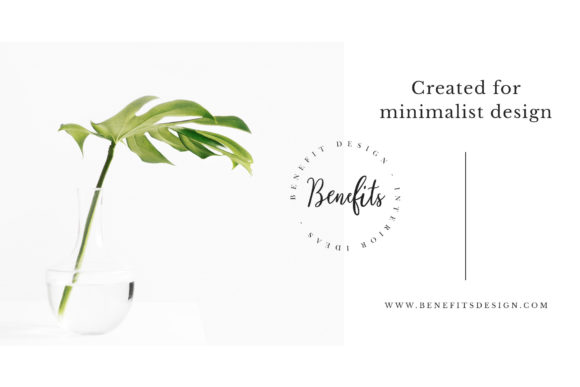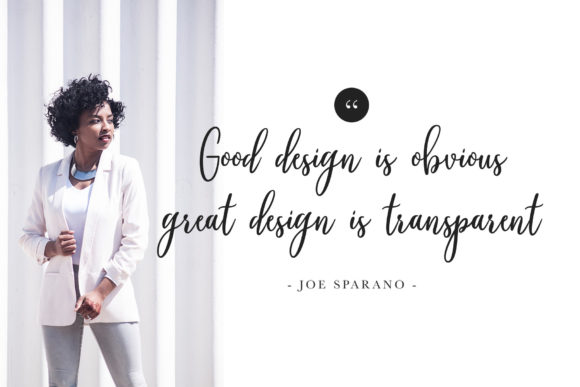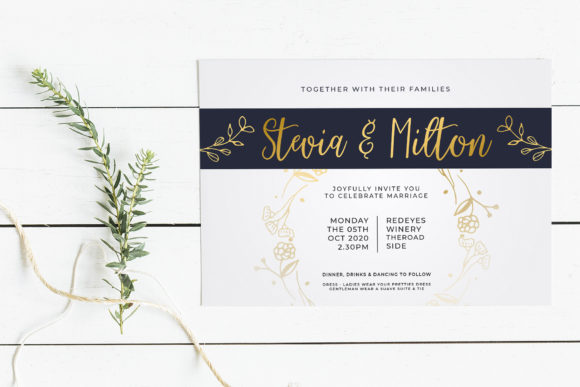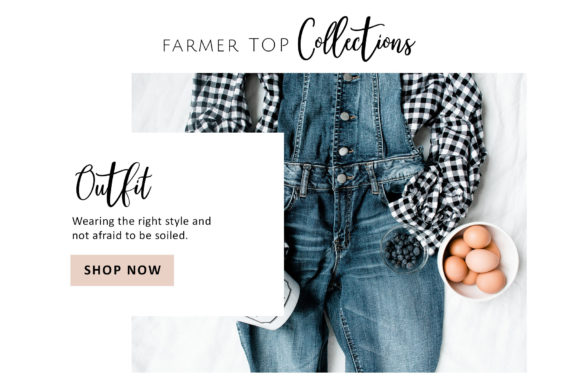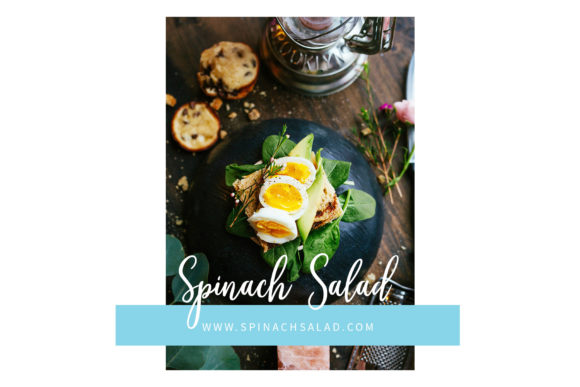
Introduction to Shelby Script Font
Shelby is a simple and interesting script font that perfectly combines classic letters with modern calligraphy.
This font is suitable for many creative projects, including titles, signatures, logos, wedding invitations, t-shirts, letterheads, nameplates, labels, bulletins, posters, badges, etc This font is PUA encoded, which means you can access all of the glyphs and swashes with ease.